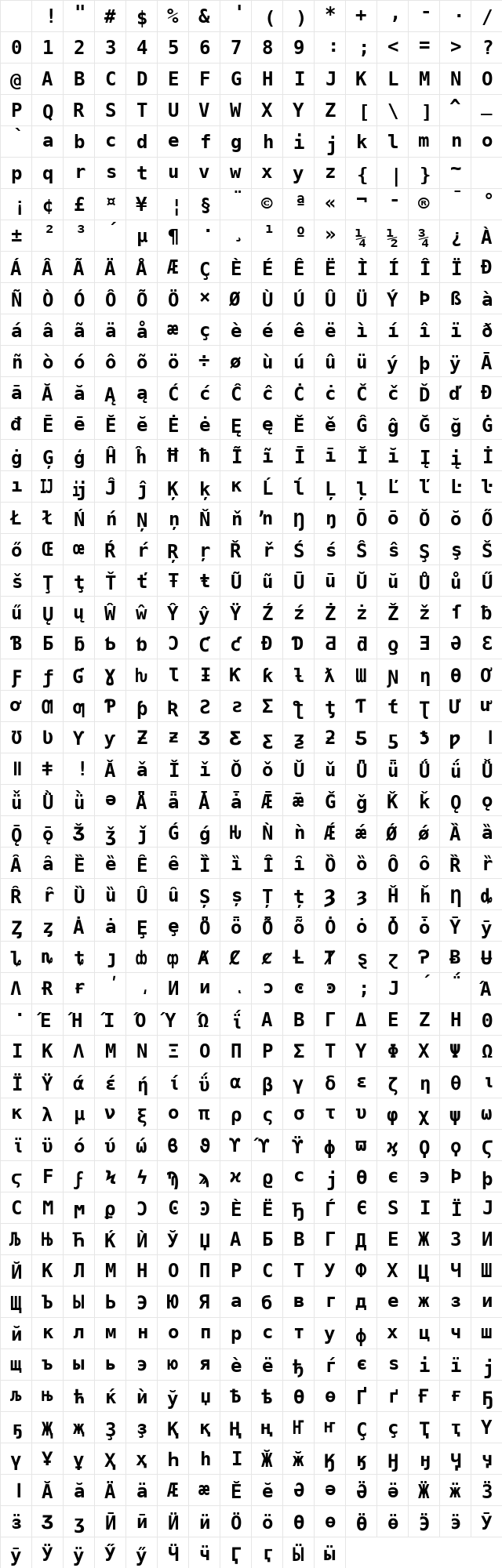
Complete DejaVu LGC Sans Mono Bold glyph index. Displaying only characters natively supported by DejaVu LGC Sans Mono Bold font.
DejaVu LGC Sans Mono uses fixed-width spacing throughout, giving it the structured, systematic character associated with coding environments and technical documentation. Its bold stroke weight gives it real presence on the page.
Pro Tip: Use DejaVu LGC Sans Mono with slightly increased line-height for extended reading - fixed-width spacing can feel dense in longer passages without extra breathing room.